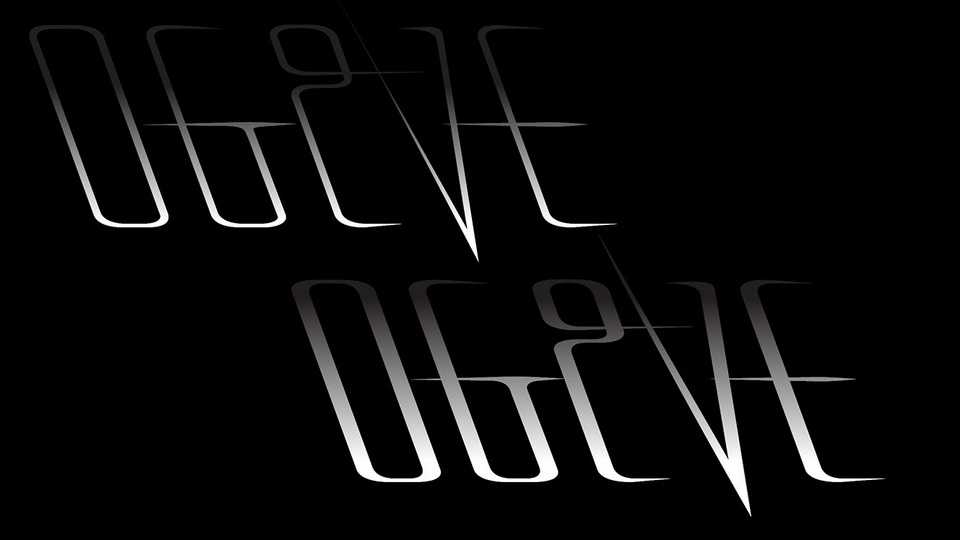
Download Ogive typeface, an impressive display font family in two weights with unique sharp forms and smooth lines. Ogive is best for posters and unique typographic artworks.
Designer: Cyril Kimmerlin